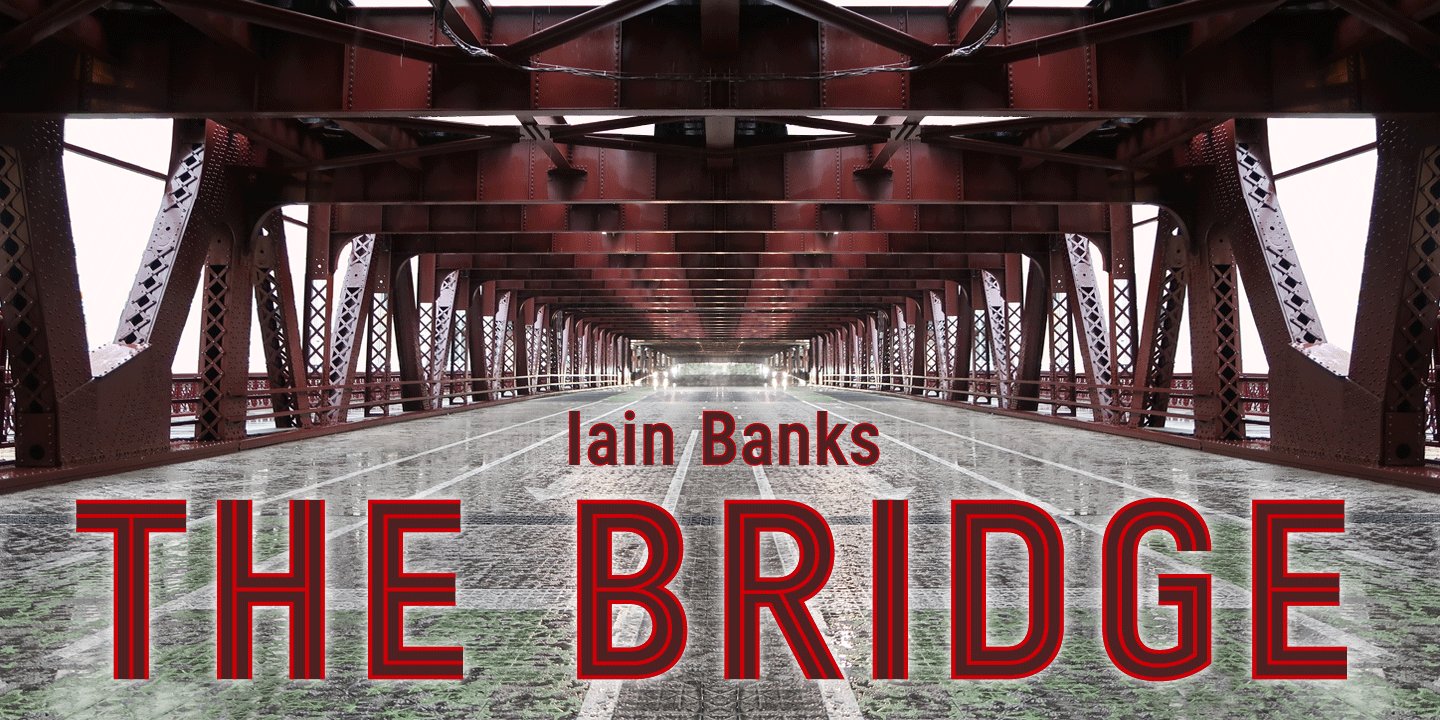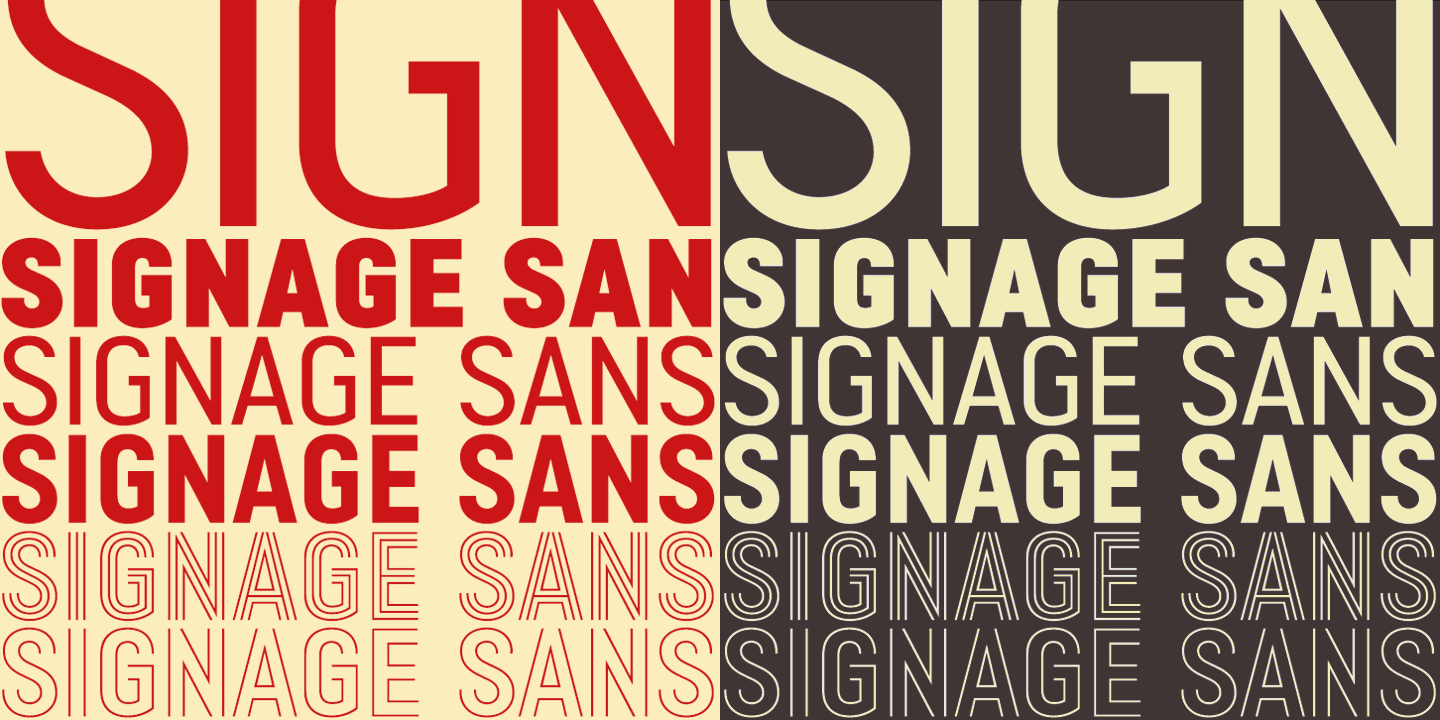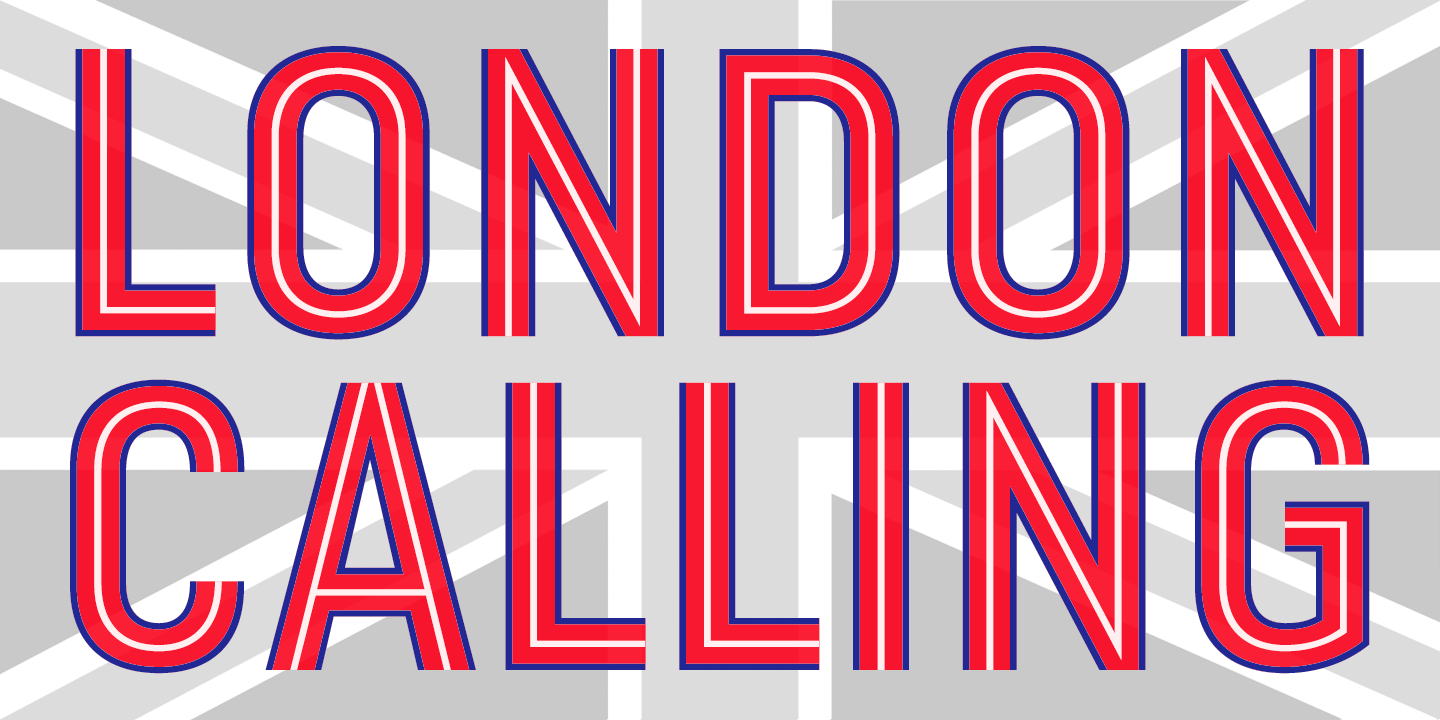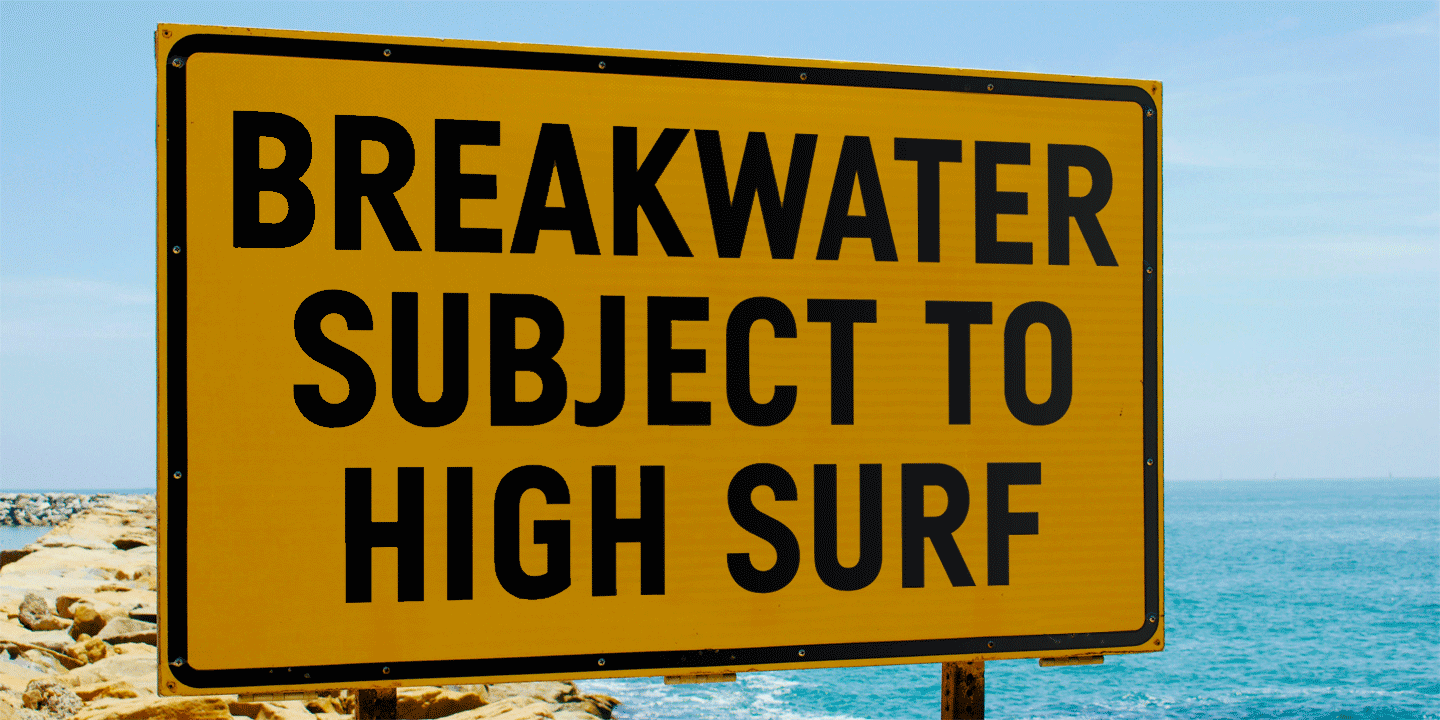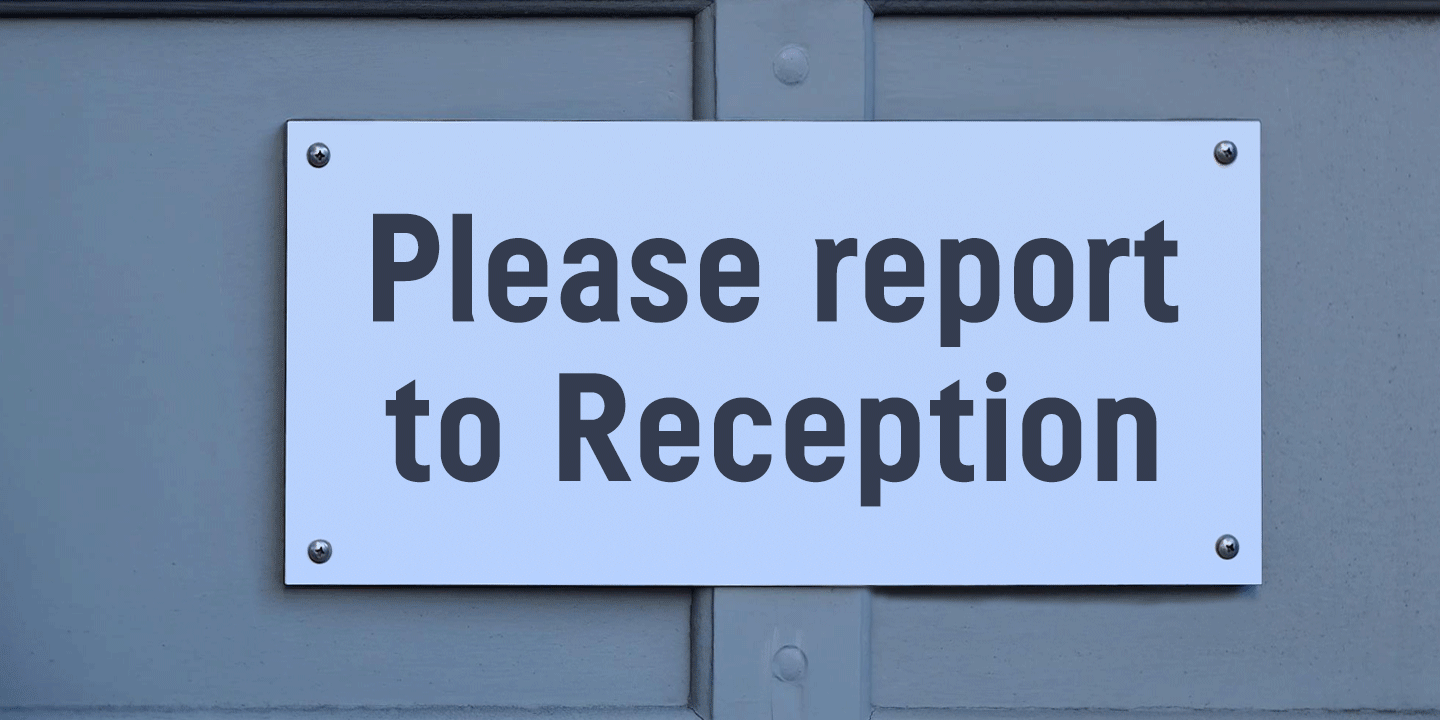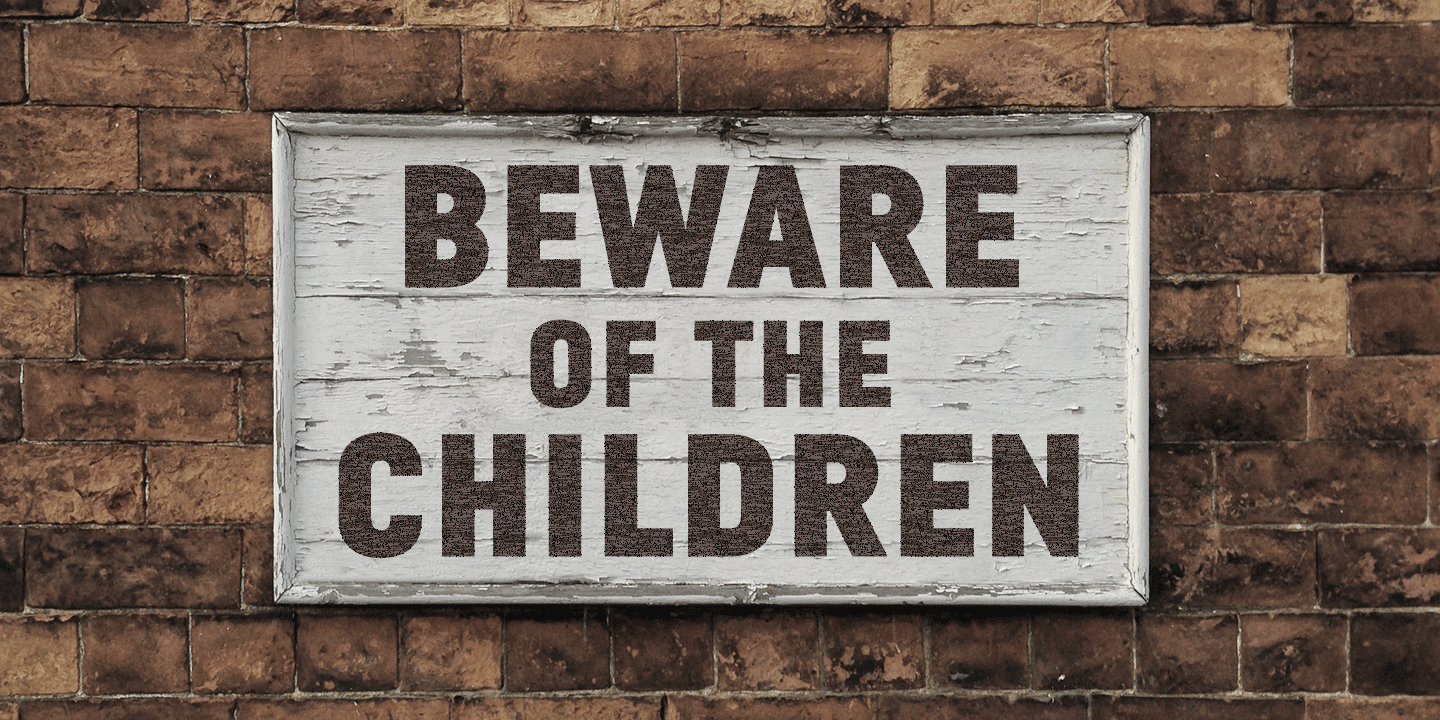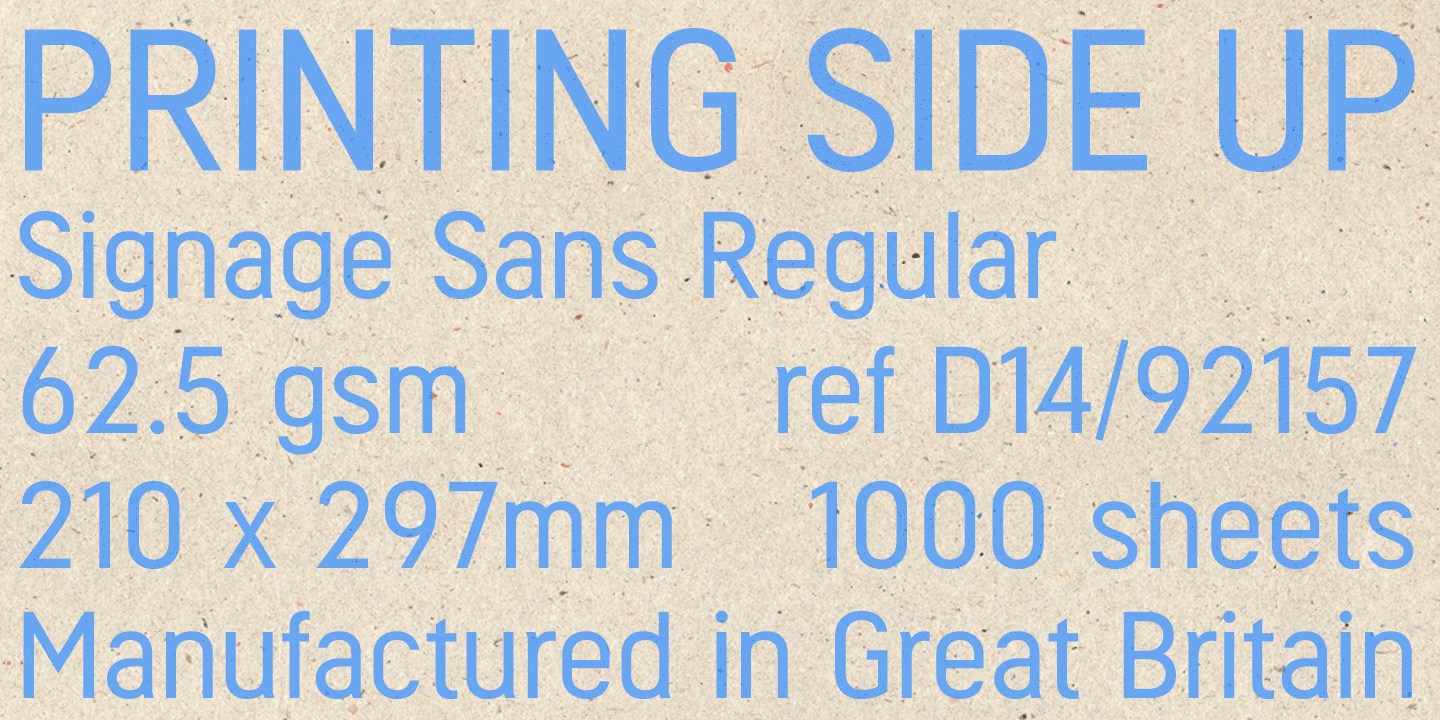
Signage Sans
About Signage Sans
The Signage Sans typeface is a monolinear, space-saving condensed designed for signs, notices, posters, titles, credits, headings, banners and captions. The basic family comprises Regular, Italic, Bold, and Bold Italic. A Heavy and Heavy Italic package…